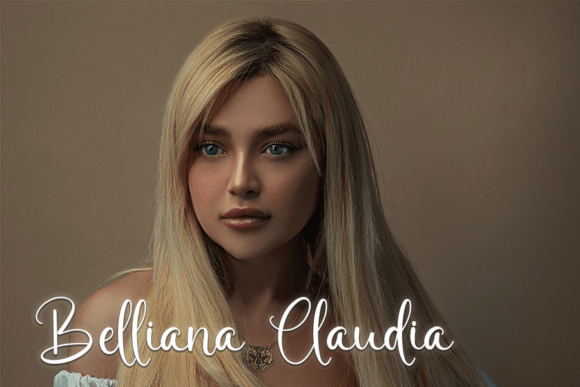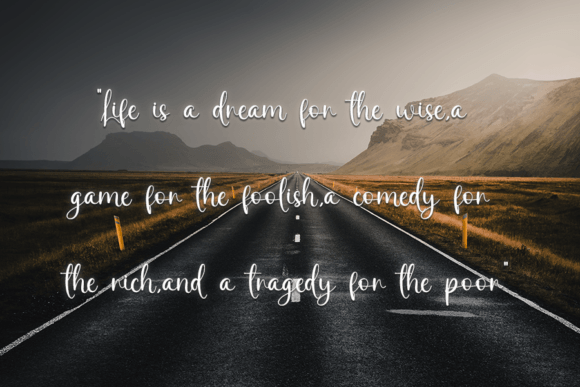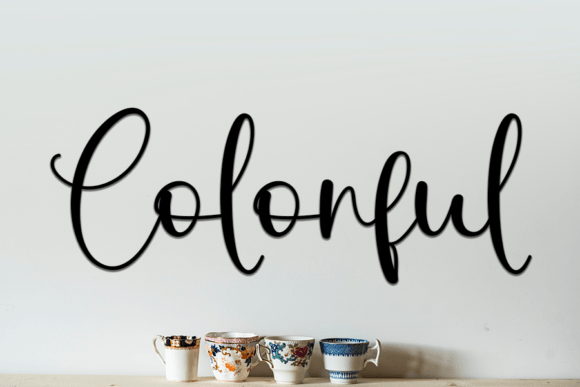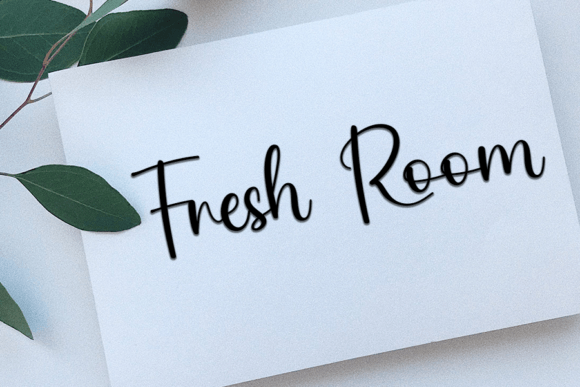
Introducing Calendar Font: The Ultimate Script Font for All Occasions
Are you tired of using the same old fonts for your crafts, digital designs, presentations, and greeting cards? Look no further than Calendar Font, a unique and beautiful script font that is sure to become your go-to font for any occasion. With its elegant and flowing script, Calendar Font is perfect for adding a touch of sophistication and style to any project.
What is Calendar Font?
Calendar Font is a script font that is designed to resemble handwriting. It has a distinctive and elegant feel that makes it perfect for a wide range of applications, from crafting and scrapbooking to digital design and presentations. The font is highly legible and easy to read, making it ideal for use in both personal and professional projects.
Features of Calendar Font
So, what makes Calendar Font so special? Here are just a few of its key features:
- Unique and Beautiful Design: Calendar Font has a distinctive and elegant design that is sure to turn heads. Its flowing script and intricate details make it a standout font that will add a touch of sophistication to any project.
- Highly Legible: Despite its ornate design, Calendar Font is highly legible and easy to read. This makes it perfect for use in both personal and professional projects, from greeting cards and invitations to presentations and reports.
- Versatile: Calendar Font is a versatile font that can be used for a wide range of applications. Whether you’re creating crafts, digital designs, presentations, or greeting cards, this font is sure to be a great choice.
- Easily Customizable: Calendar Font is easily customizable, allowing you to adjust the font size, style, and color to suit your needs.
Uses for Calendar Font
So, what can you use Calendar Font for? The possibilities are endless! Here are just a few ideas to get you started:
- Crafts and Scrapbooking: Calendar Font is perfect for use in crafts and scrapbooking. Its elegant design and flowing script make it ideal for adding titles and captions to your projects.
- Digital Design: Calendar Font is also great for use in digital design. Its highly legible and easy to read design makes it perfect for use in websites, blogs, and social media graphics.
- Presentations: If you’re looking for a font to use in presentations, Calendar Font is a great choice. Its elegant design and flowing script make it perfect for adding titles and headings to your slides.
- Greeting Cards and Invitations: Calendar Font is also perfect for use in greeting cards and invitations. Its unique and beautiful design makes it ideal for adding a personal touch to your cards and invites.
Tips for Using Calendar Font
Here are a few tips for using Calendar Font:
- Use it Sparingly: While Calendar Font is a beautiful font, it’s best to use it sparingly. Use it for titles and headings, and a simpler font for body text.
- Experiment with Colors: Calendar Font looks great in a variety of colors. Experiment with different colors to find the one that works best for your project.
- Pair it with Other Fonts: Calendar Font pairs well with a variety of other fonts. Experiment with different font combinations to find the one that works best for your project.
In conclusion, Calendar Font is a unique and beautiful script font that is perfect for any occasion. Its elegant design, flowing script, and highly legible design make it ideal for use in a wide range of applications, from crafts and scrapbooking to digital design and presentations. With its versatility, customizability, and ease of use, Calendar Font is sure to become your go-to font for all your design needs.